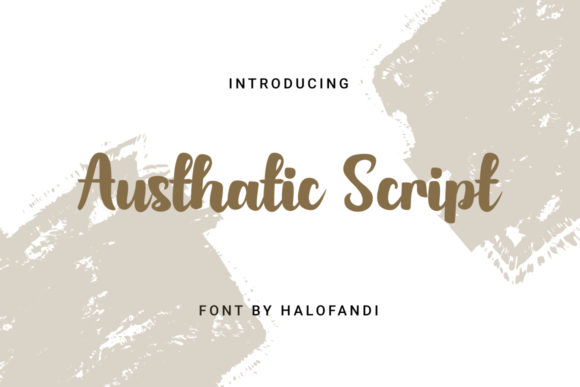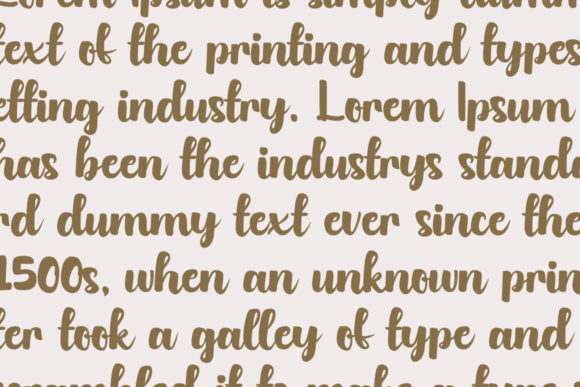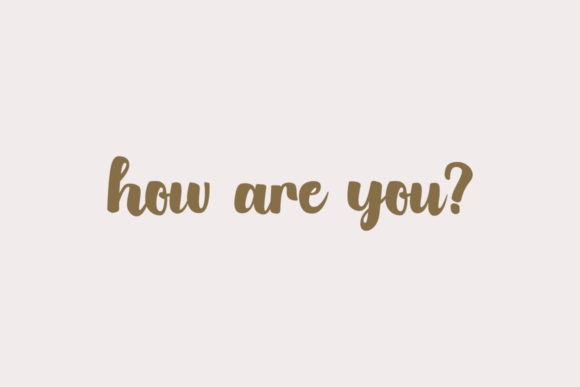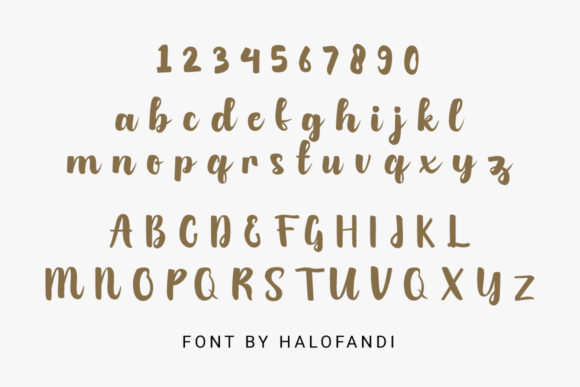
Austhatic Script Font
About Austhatic Script Font
Austhatic Script is an incredibly distinct, delicate and timeless handwritten font. It looks stunning on wedding invitations, thank you cards, quotes, greeting cards, logos, business cards and every other design which needs a handwritten touch.